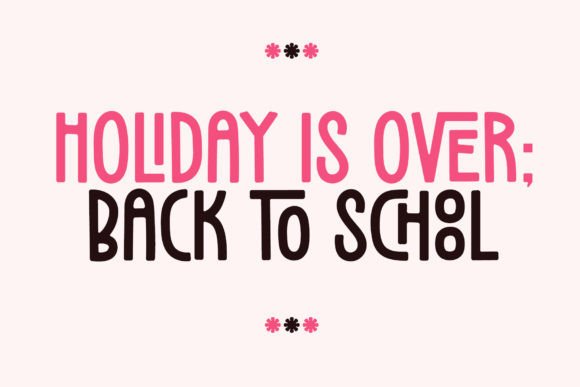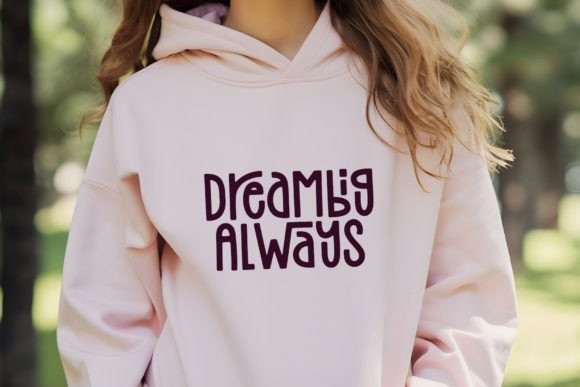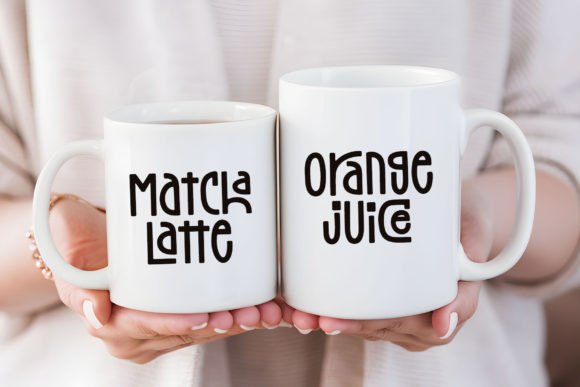
Brother Happyland Font
Brother Happyland is a display font with fun and cute vibes.This font has lots of ligatures for its uppercase and lowercase. The ligatures radiate cuteness and playful vibes.It is a pretty font for any project, especially with a cute and playful style, such as logo, t-shirt, crafting, poster, branding, sticker, sublimation, quotes, and many more.